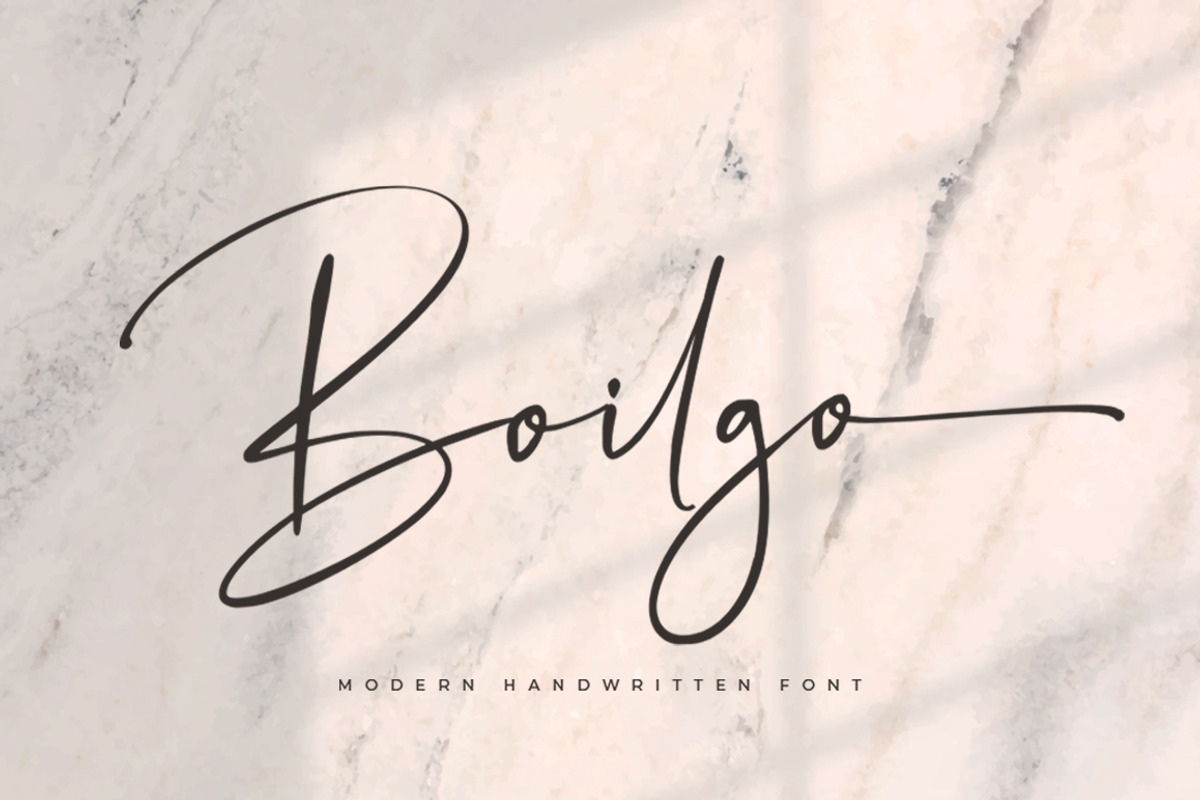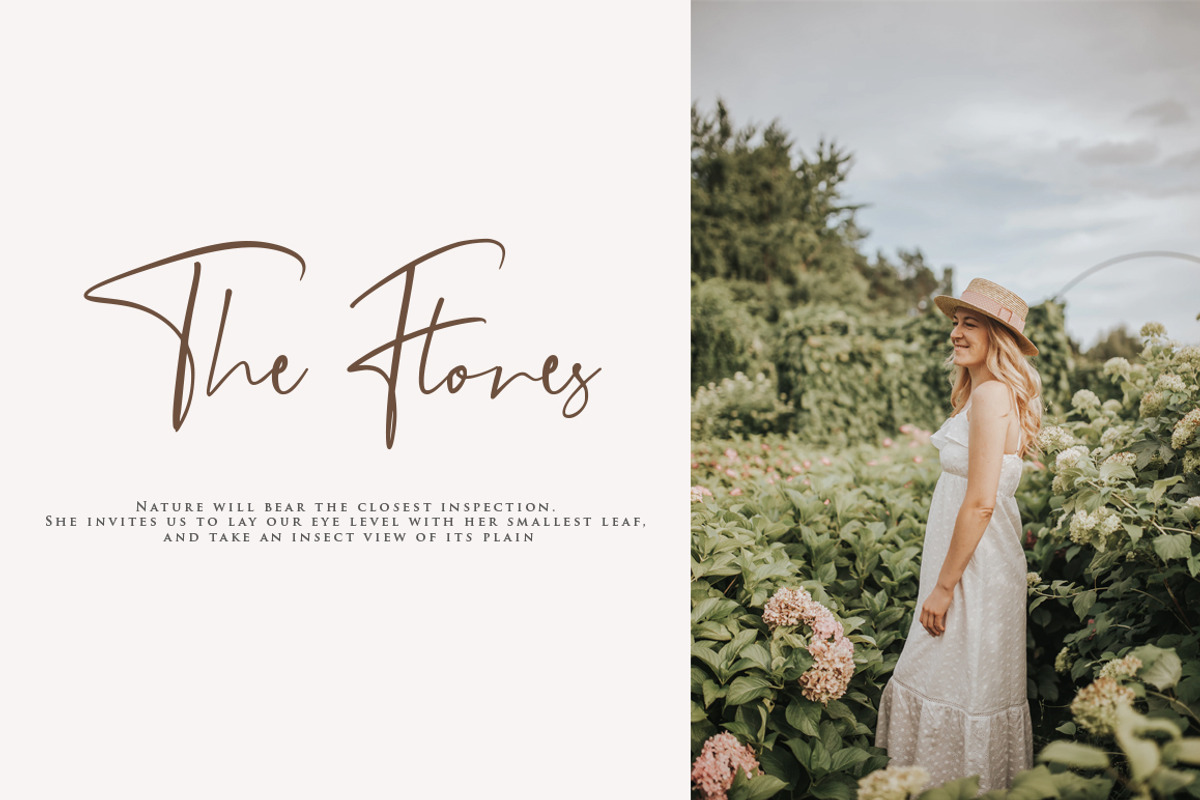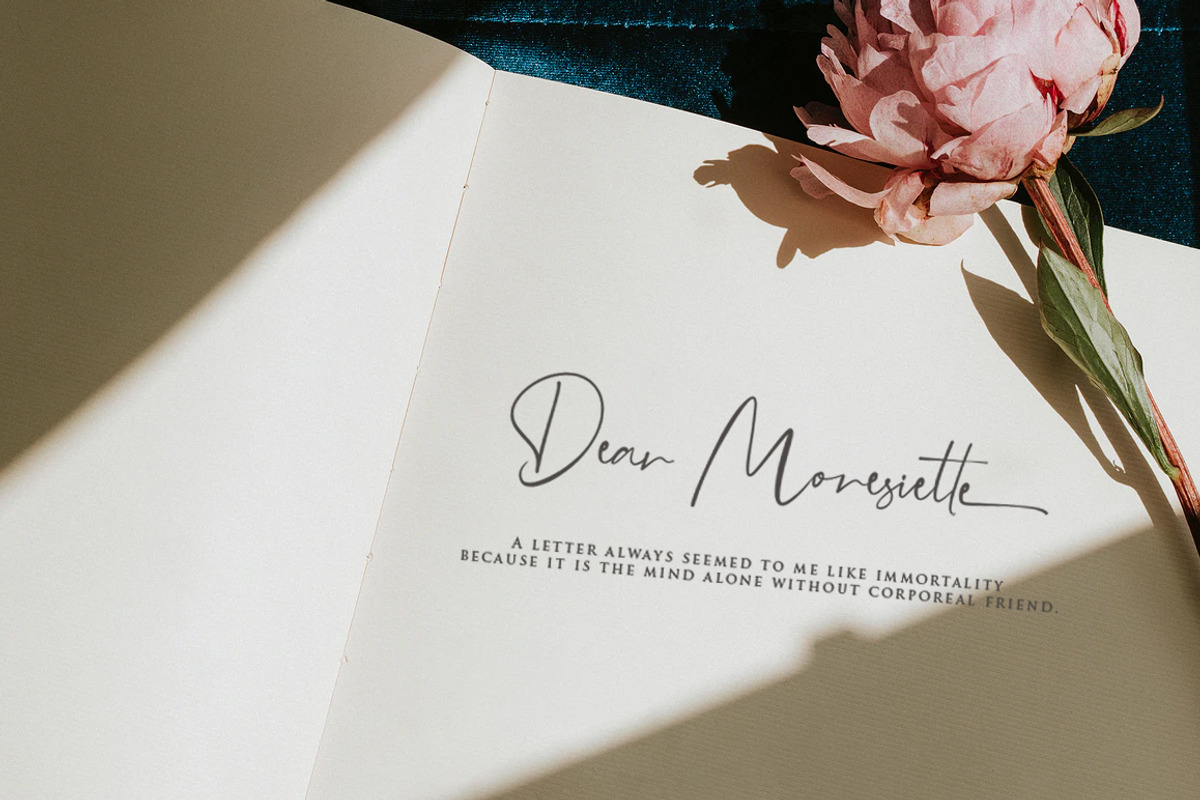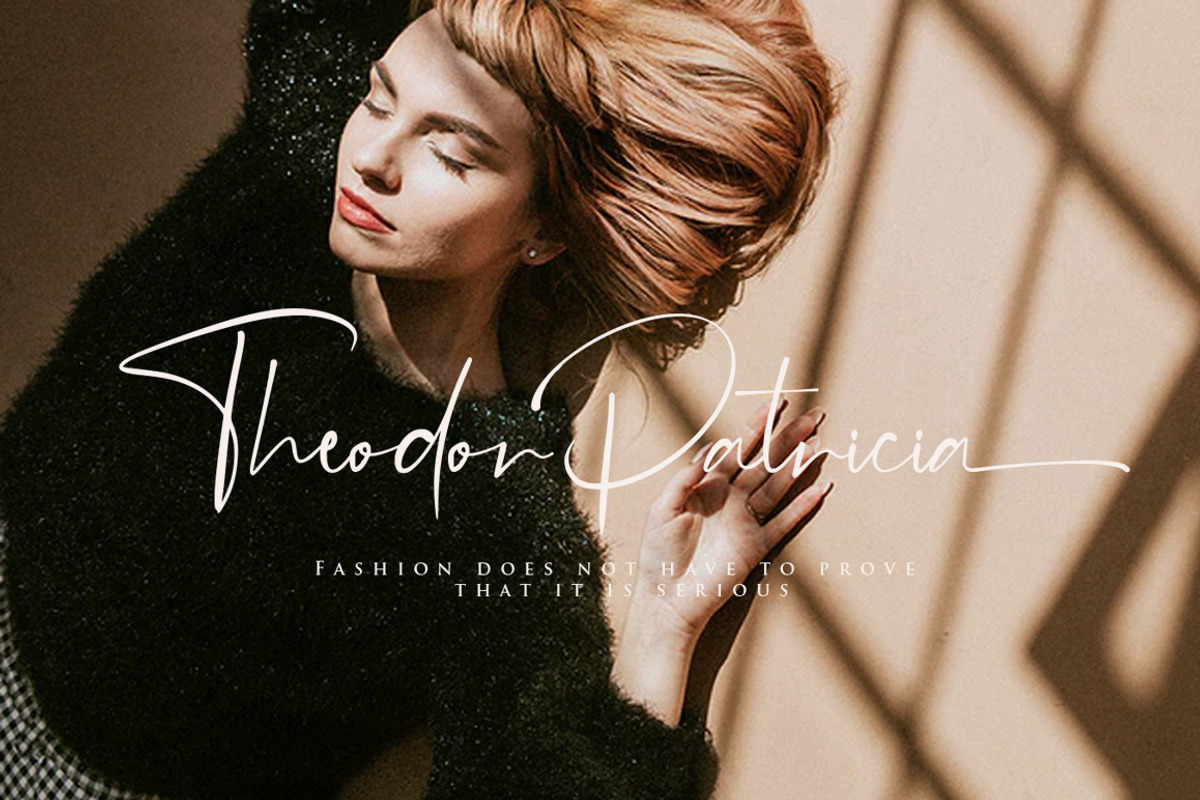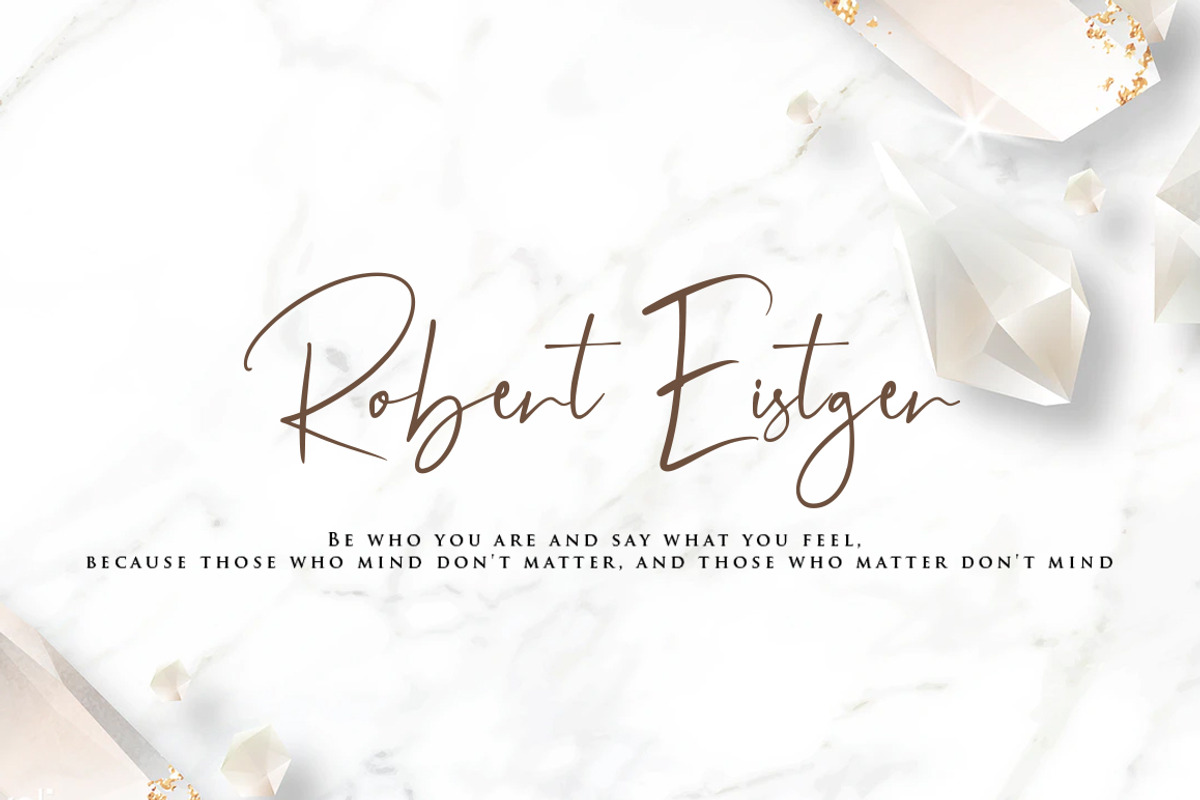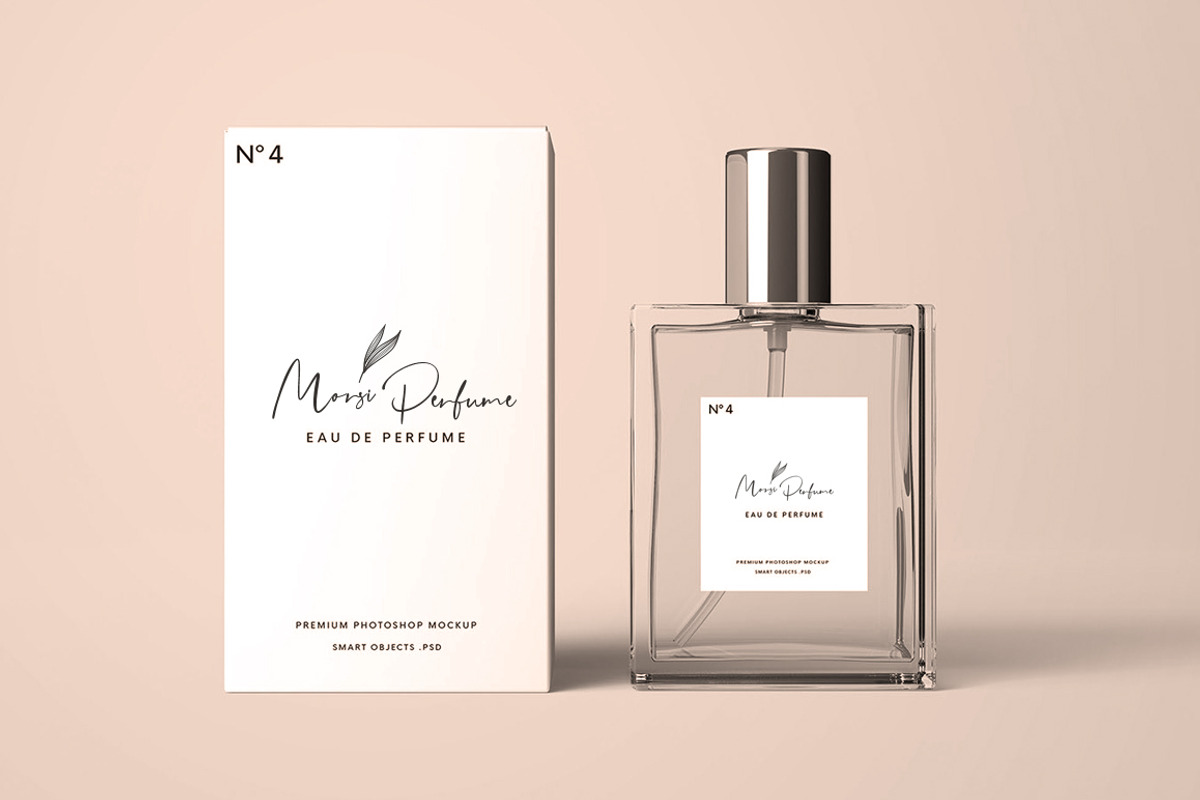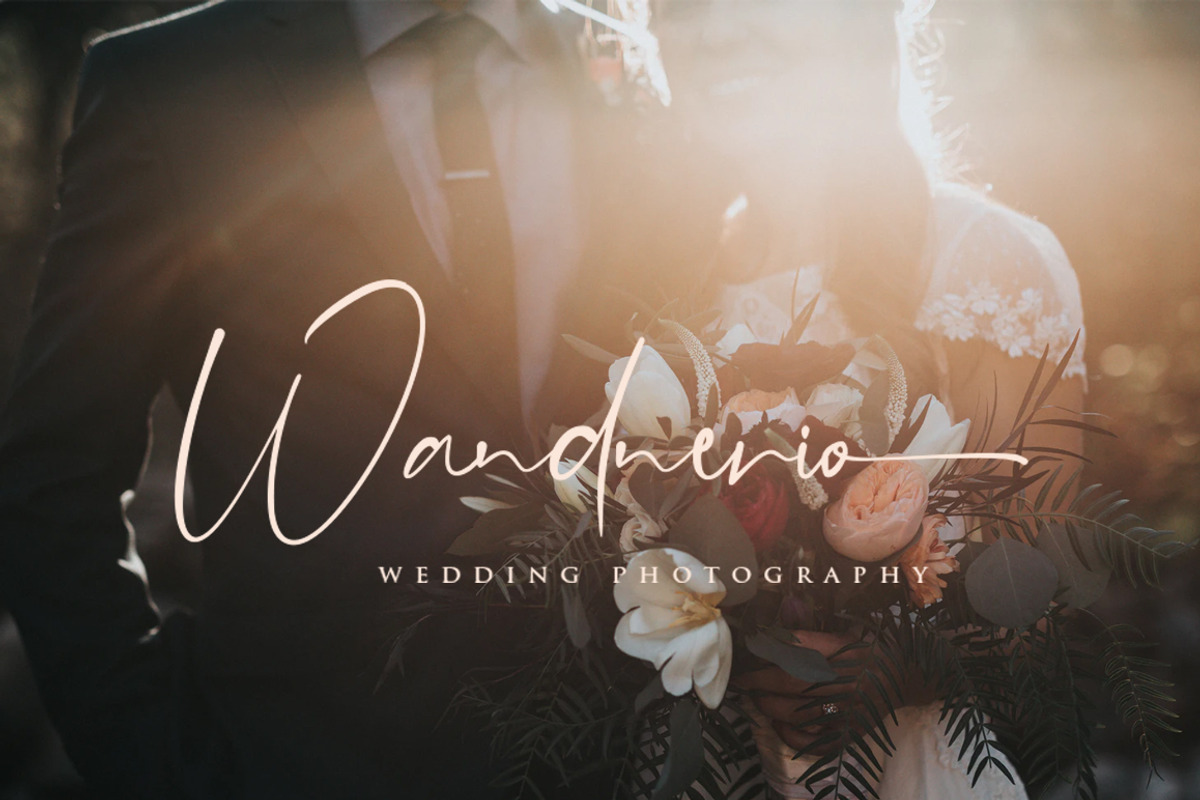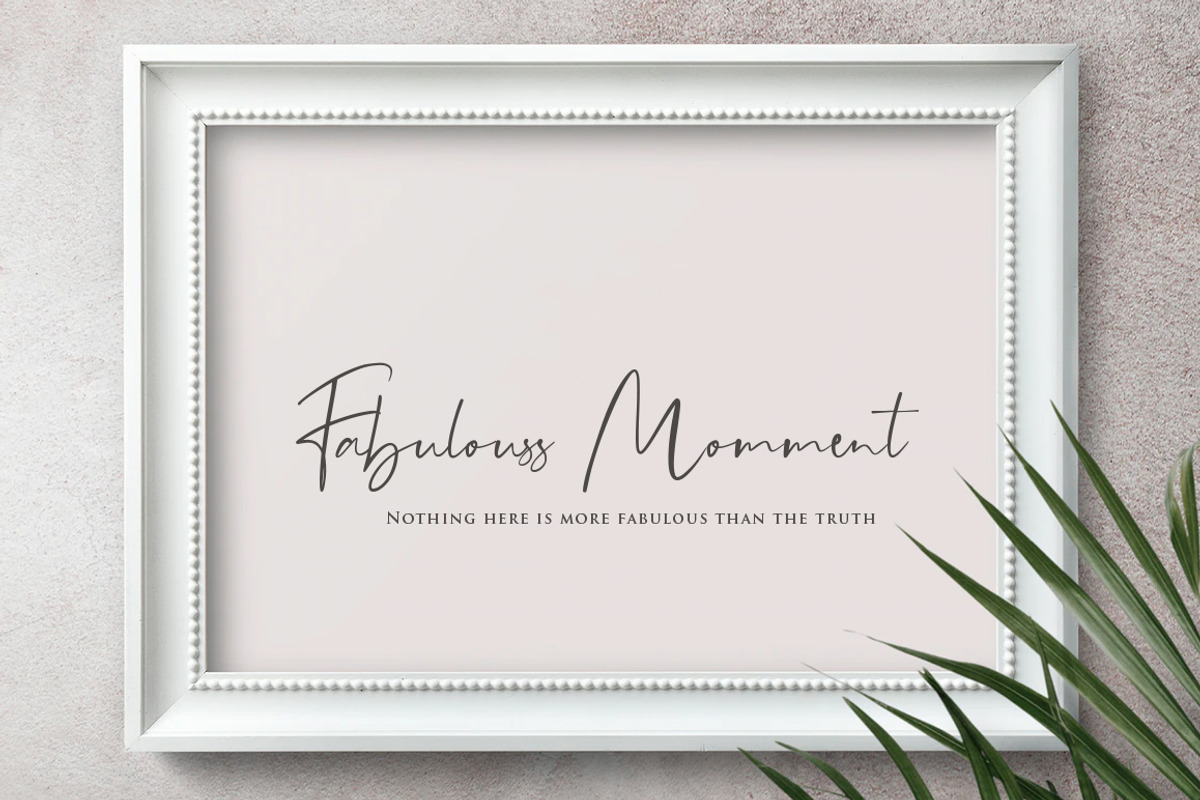
SALE ! Boilgo is minimalistic script and modern serif with beautiful ligature and alternate font.
It easily cooperating together For Magazine, Movies, or Book Titles. For Photography, Wedding Invitation, Restaurant Menu or T-shirt Design. For Flyers, Banner Ads, web and printing. From Food and Fashion to a Cosmetics product
- Ligature Feature